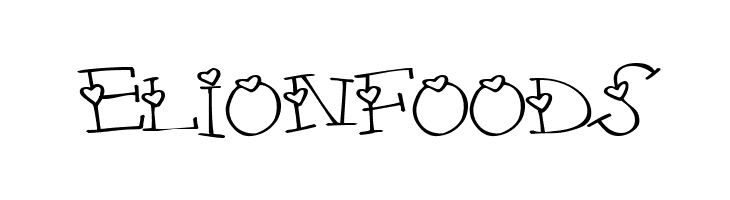
A flowing, cursive script font with elegant loops and swashes.
A bold, graffiti-inspired font with angular, geometric shapes and a rebellious aesthetic.
A playful handwritten font with rounded, consistent strokes and an informal style.
A cursive, italic font with elegant, flowing strokes.
A classic serif font with elegant and refined strokes.
A dot matrix font with a retro digital display aesthetic.
A pixelated, grid-based font resembling LED displays with a digital, modern look.
A pixelated, digital font inspired by classic LCD displays, perfect for tech-themed projects.
A pixelated, retro-style font with a digital, grid-like appearance.
A modern, geometric sans-serif font with a clean and balanced design.
A bold, modern sans-serif font with clean, geometric lines.
A graffiti-inspired font with bold, angular strokes and a dynamic, rebellious style.
A bold, distressed font with a grunge, textured style.
A bold, cursive font with a dynamic and flowing style.
A bold, playful font with dynamic and slightly irregular letterforms.
A modern, rounded sans-serif font with excellent readability.
A dynamic, calligraphic font with sweeping curves and sharp terminals.
A dynamic, forward-leaning font with bold, angular characters.
A playful, hand-drawn font with an artistic and whimsical style.
An elegant and sophisticated cursive script font with flowing curves and dynamic strokes.
A modern, elegant font with smooth curves and balanced structure.
A bold, whimsical font with bee illustrations atop each character.
A dingbat font with classic toy illustrations.
A decorative floral and leaf dingbat set with varied botanical silhouettes.
A bold, decorative font with dynamic radiating lines on each character.
A bold, decorative font with an eye motif integrated into each character.
A dynamic and expressive handwritten font with fluid, spontaneous strokes.
A casual, handwritten-style font with uneven strokes and a personal touch.
A decorative font with characters inside lace-bordered hearts, offering a playful and romantic style.